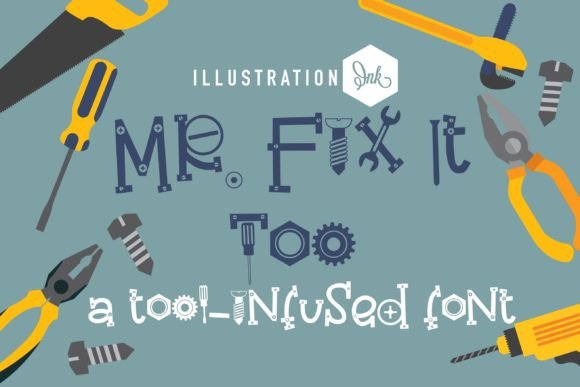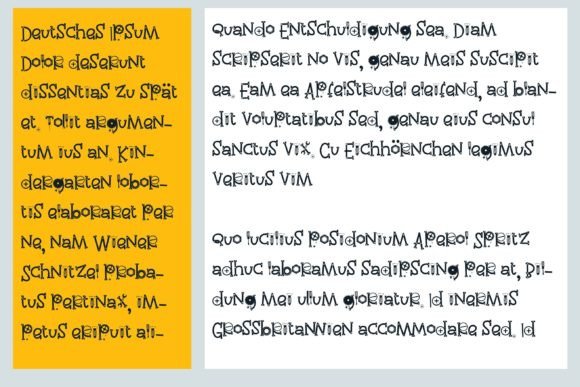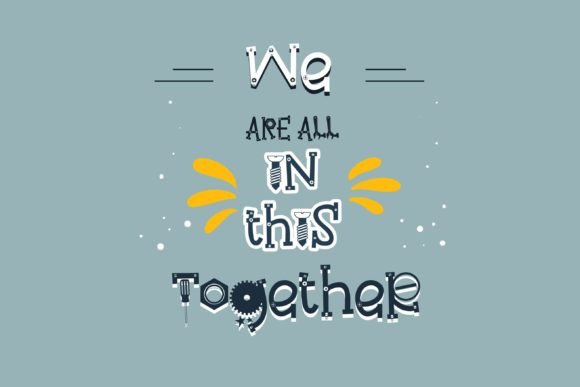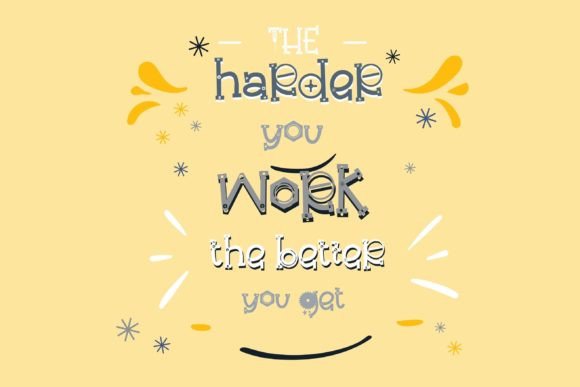
Mr. Fix It Too Font: A Playful DIY Display Font for Crafters
About the Mr. Fix It Too Font
Discover the charm of Mr. Fix It Too Font. This font is a perfect blend of modern aesthetics and classic appeal. Meet Mr. Fix It Too, the friendly font that’s all about fixing things! Each letter is crafted from tools like hammers, wrenches, and screwdrivers, making it perfect for projects, workshops, and DIY enthusiasts. It’s easy to read and adds a playful touch to any design, whether it’s a poster, flyer, or signage. Let Mr. Fix It Too lend a hand to your creative toolbox!
Mr. Fix It Too’s playful, yet legible nature makes it ideal for headlines, logos for handyman services or DIY brands, and short-form content like posters and flyers. It’s also well-suited for children’s books or educational materials related to tools or construction. However, its unique letterforms are less effective for body text or lengthy paragraphs; readability suffers at smaller sizes.
Consider pairing Mr. Fix It Too with a clean sans-serif like Open Sans for body text to provide a strong contrast and maintain readability. For a more vintage feel, a classic serif like Garamond could complement its playful energy. Avoid pairing it with overly decorative or script fonts, as this might create visual clutter and detract from its distinct charm.
The font projects a friendly, approachable, and slightly quirky personality, perfect for brands that want to convey a sense of helpfulness and approachability. It avoids being overly childish, maintaining a level of sophistication suitable for a broad range of applications.
Mr. Fix It Too Font Example